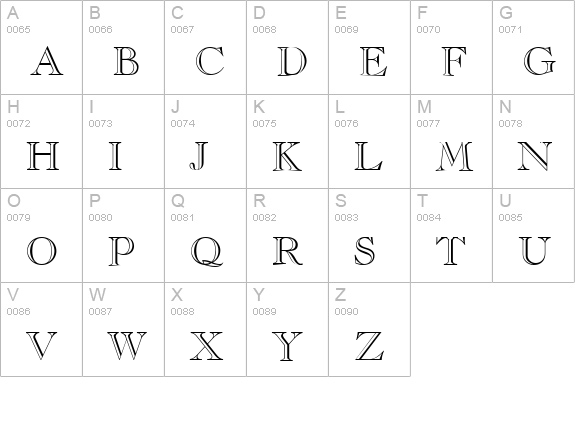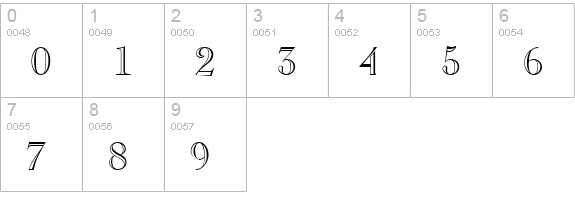
CasperOpenFace Font Details
CasperOpenFace is a unique and elegant font that combines classic and modern design elements. This versatile typeface features open, airy letterforms with a touch of whimsy, making it perfect for a wide range of creative projects. Whether you're designing a logo, poster, or website, CasperOpenFace's clean lines and stylish curves will add a touch of sophistication to your work. What's even better is that CasperOpenFace is completely free to download at FontsMarket.com. This means you can access this stunning font without any cost, making it a valuable addition to your font collection. With its timeless appeal and easy readability, CasperOpenFace is sure to become a favorite choice for designers looking to make a statement with their typography. Download it today and elevate your designs with this beautiful and free font.